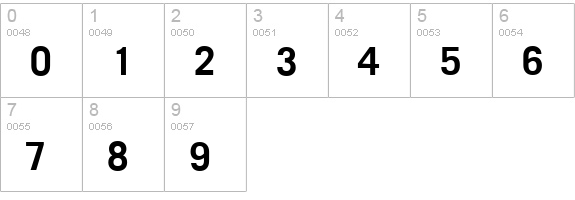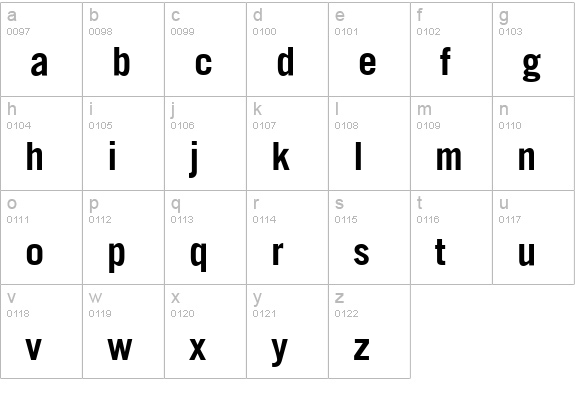
TransferGothic-Bold is a strong, high-contrast variant in the TransferGothic typeface family \xE2\x80\x94 well suited to headlines, attention-grabbing titles, and strong calls-to-action.
TransferGothic-Bold is a stunning and versatile font that exudes strength and modernity. With its bold and assertive design, this font is perfect for making a bold statement in your designs. Whether you are creating posters, banners, logos, or any other design project, TransferGothic-Bold will surely make a lasting impression. What makes TransferGothic-Bold even more appealing is the fact that it is available for free download at FontsMarket.com. This means that you can easily access this high-quality font without having to spend a dime. So go ahead and elevate your designs with TransferGothic-Bold – the perfect blend of style and sophistication, now just a click away.